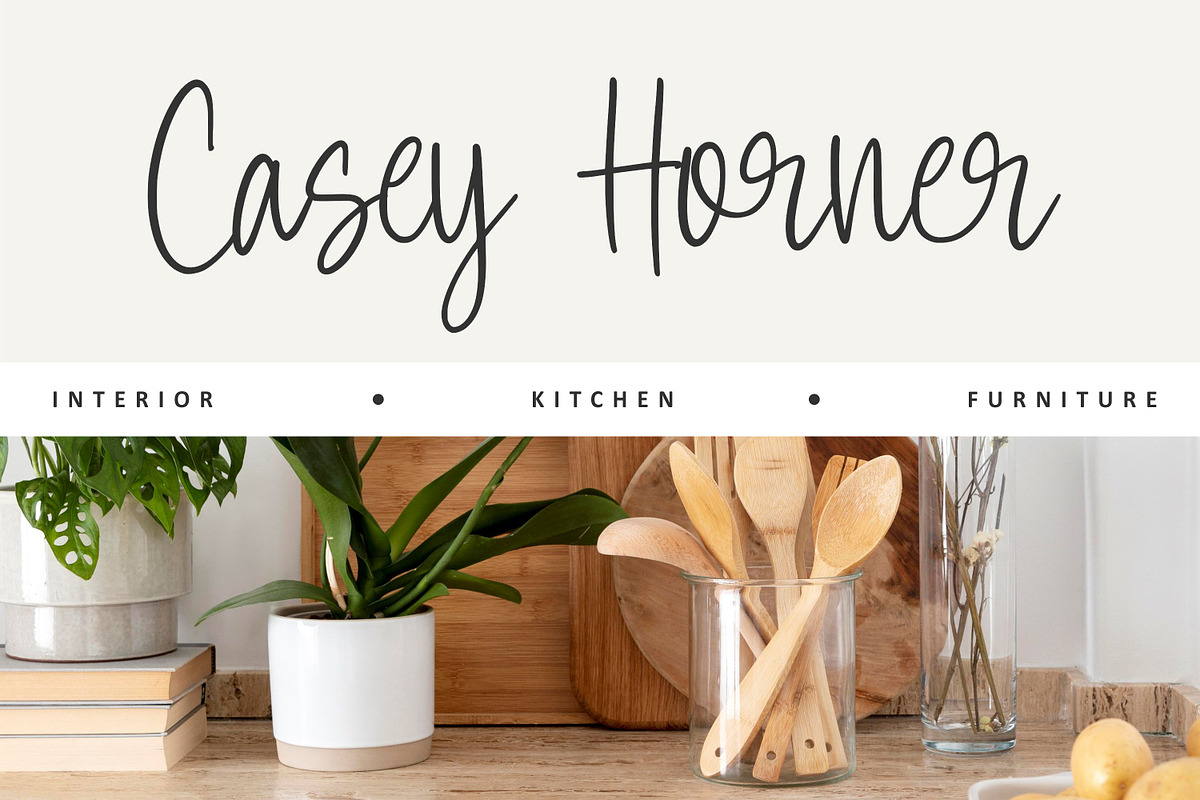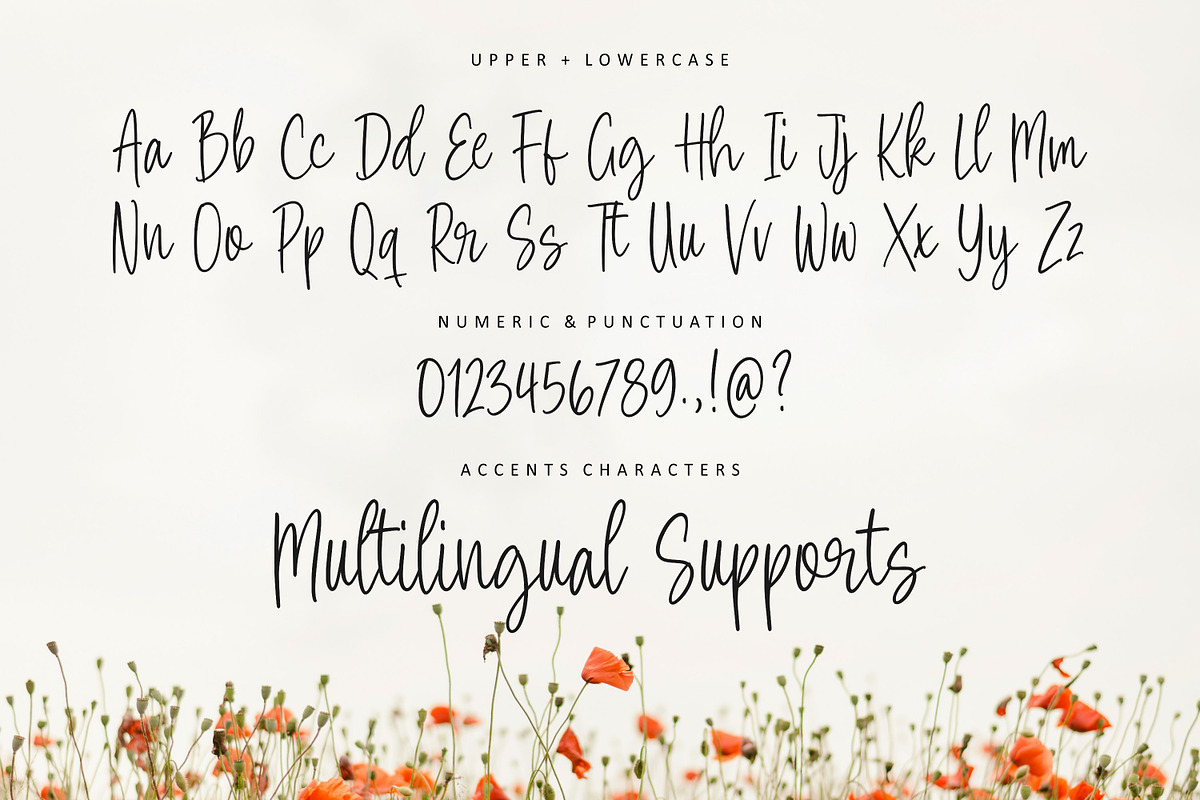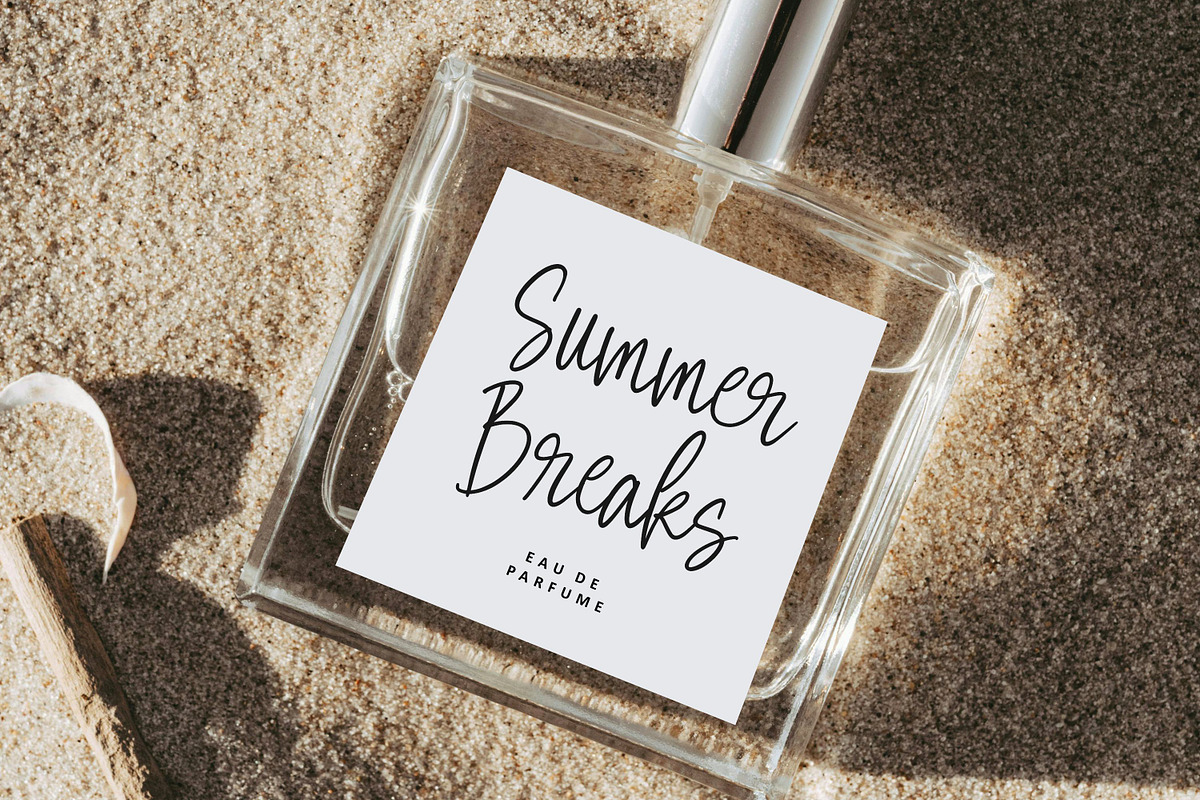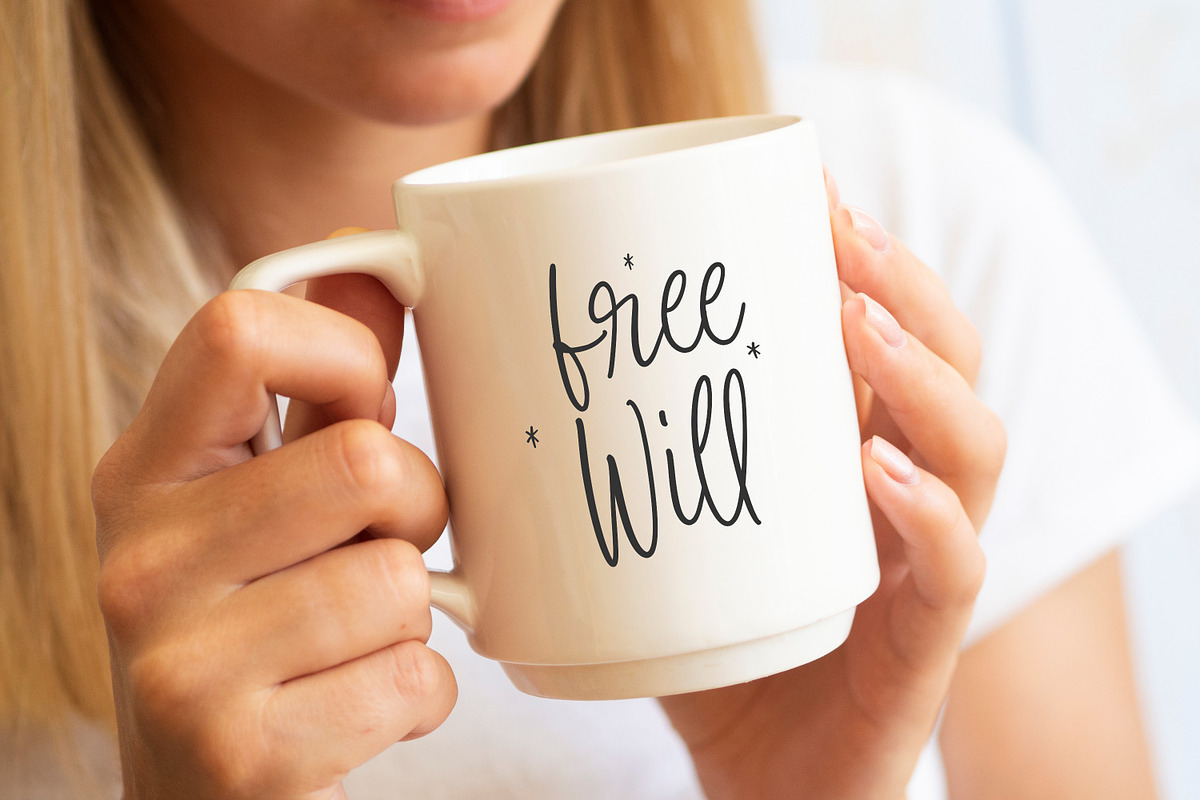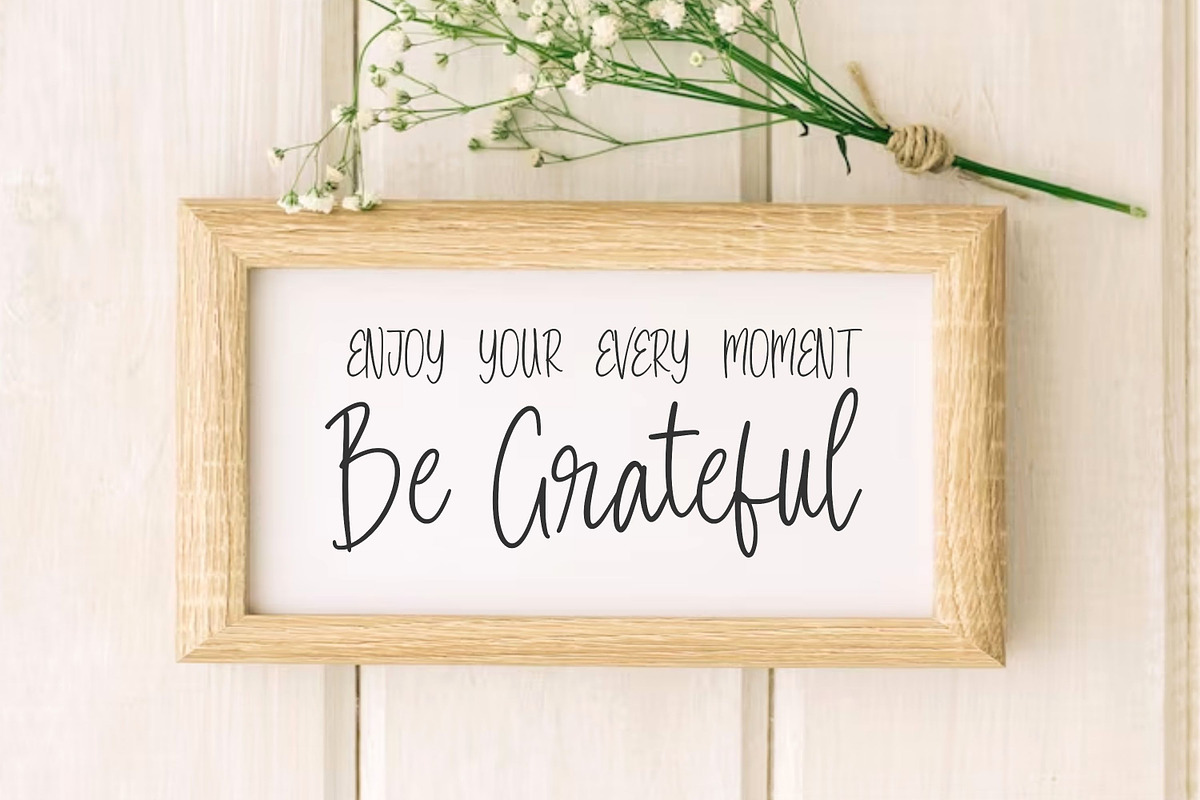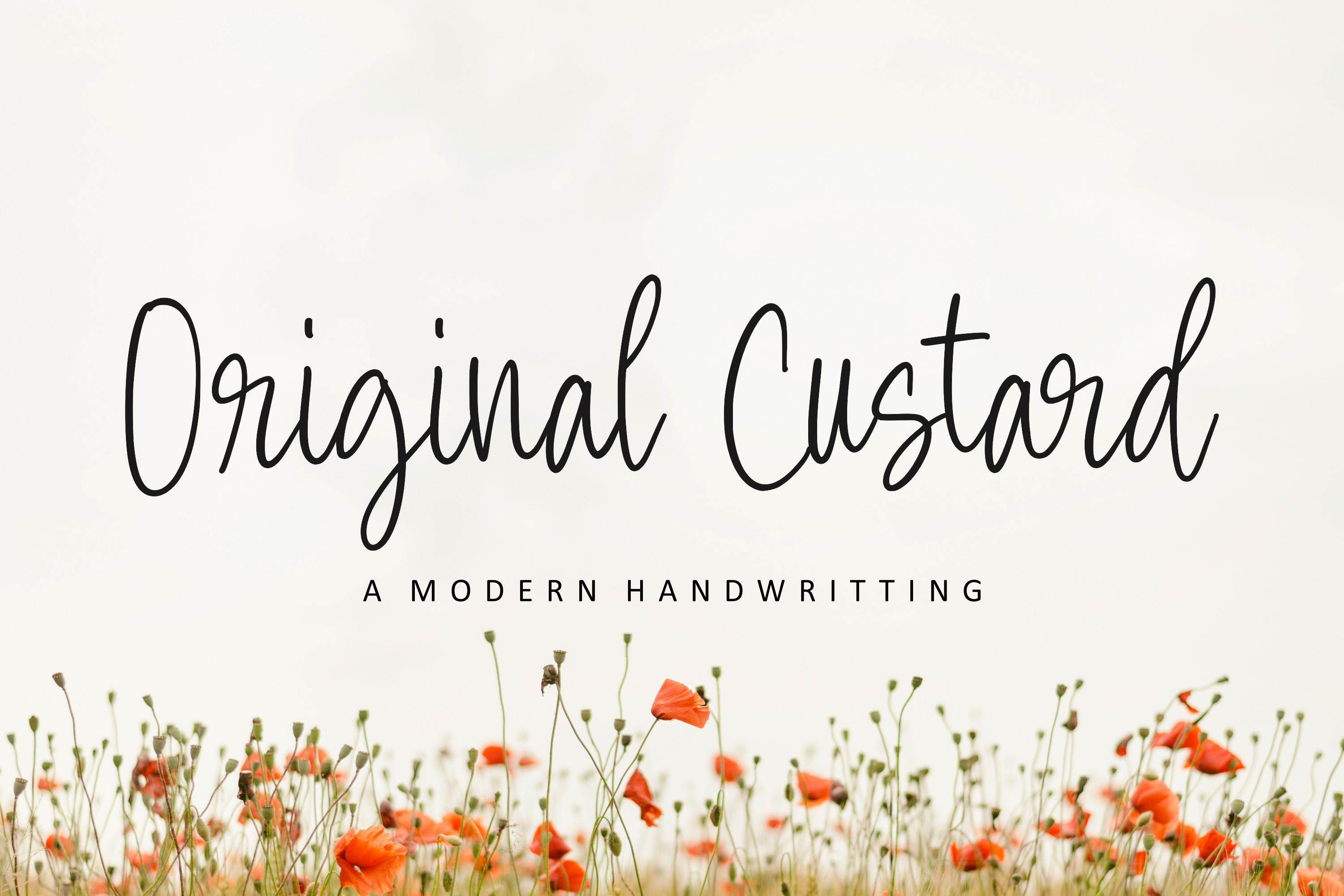
Original Custard Font
Original Custard is a Modern Handwritting Font that’s perfect for adding a touch to your design projects!
Crafted with care and attention to detail, this font is incredibly versatile and can be used for a range of design projects, including logos, branding, invitations, and more.
Its modern, handwritten style gives it a unique character that’s sure to make an impact.
Also multilingual support